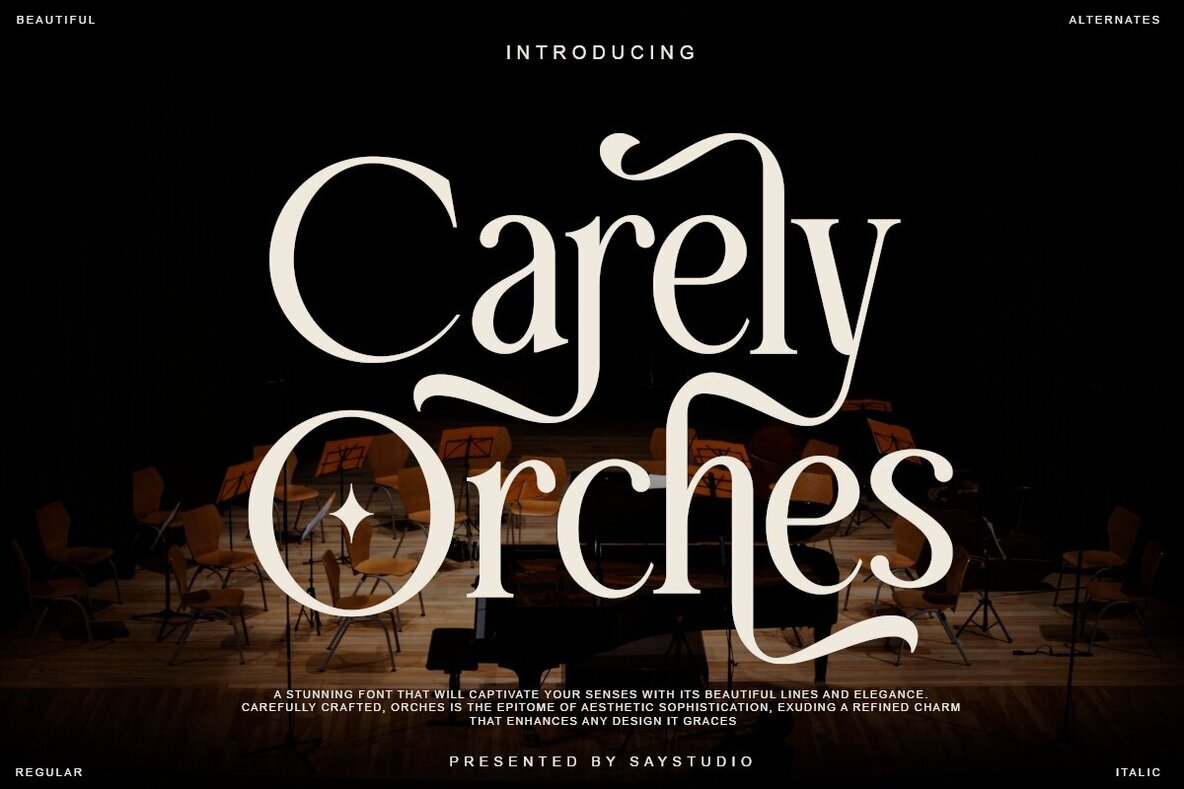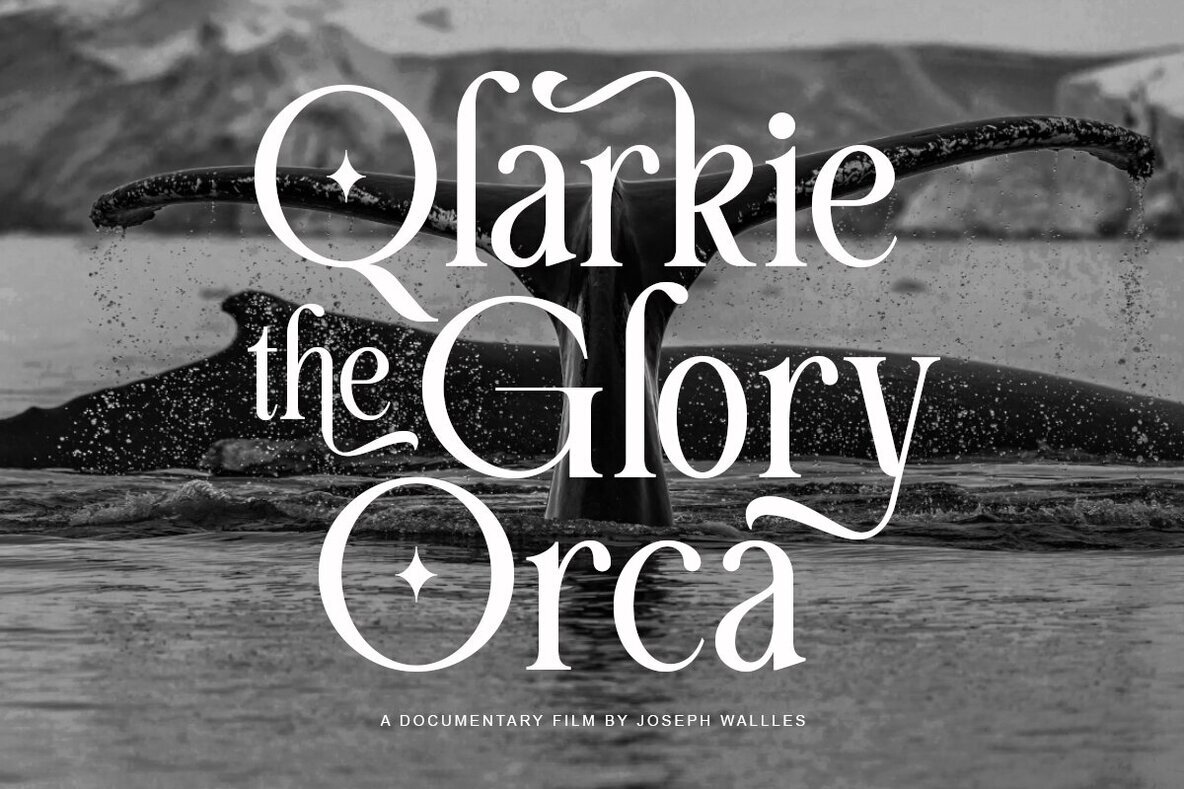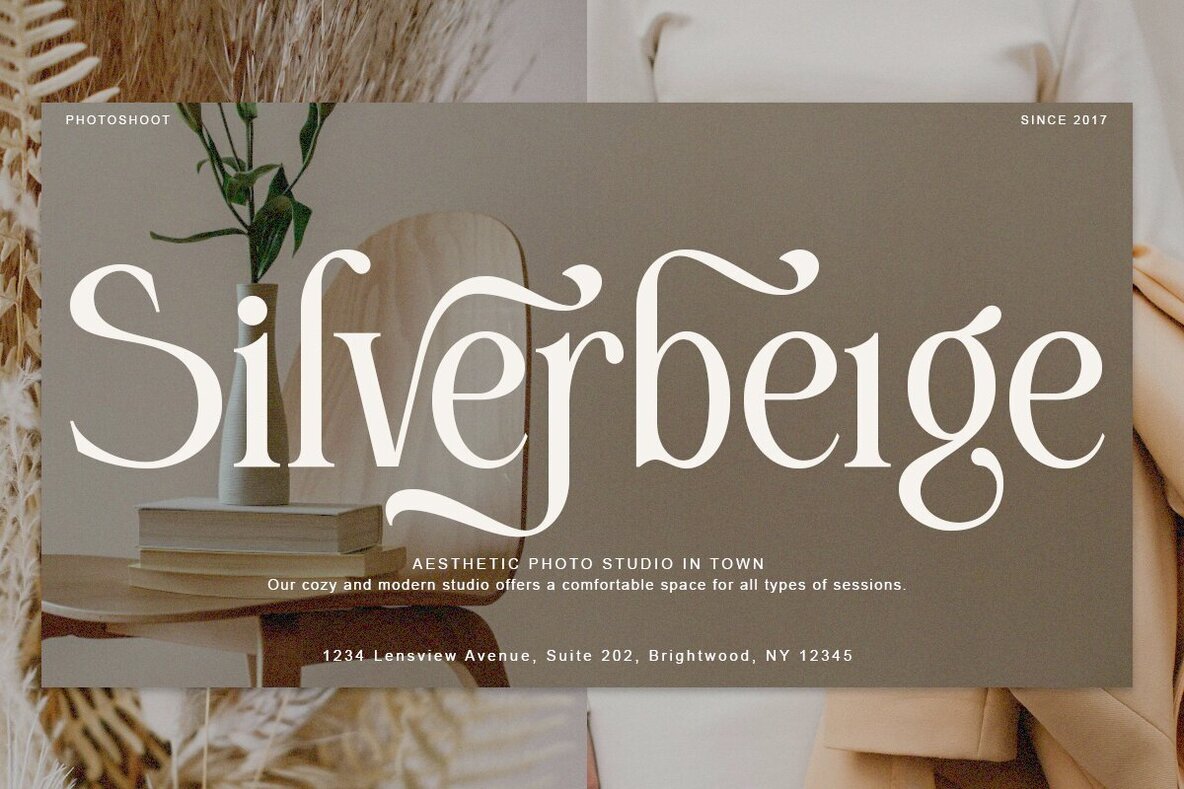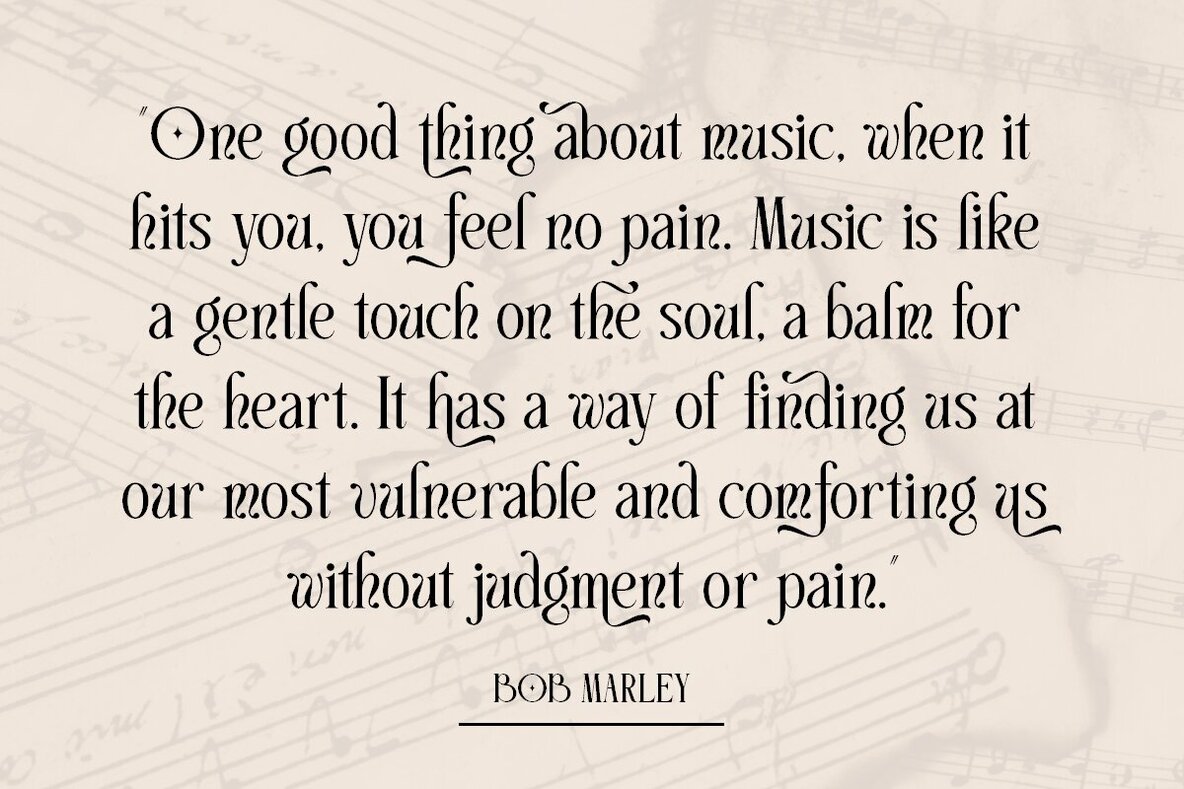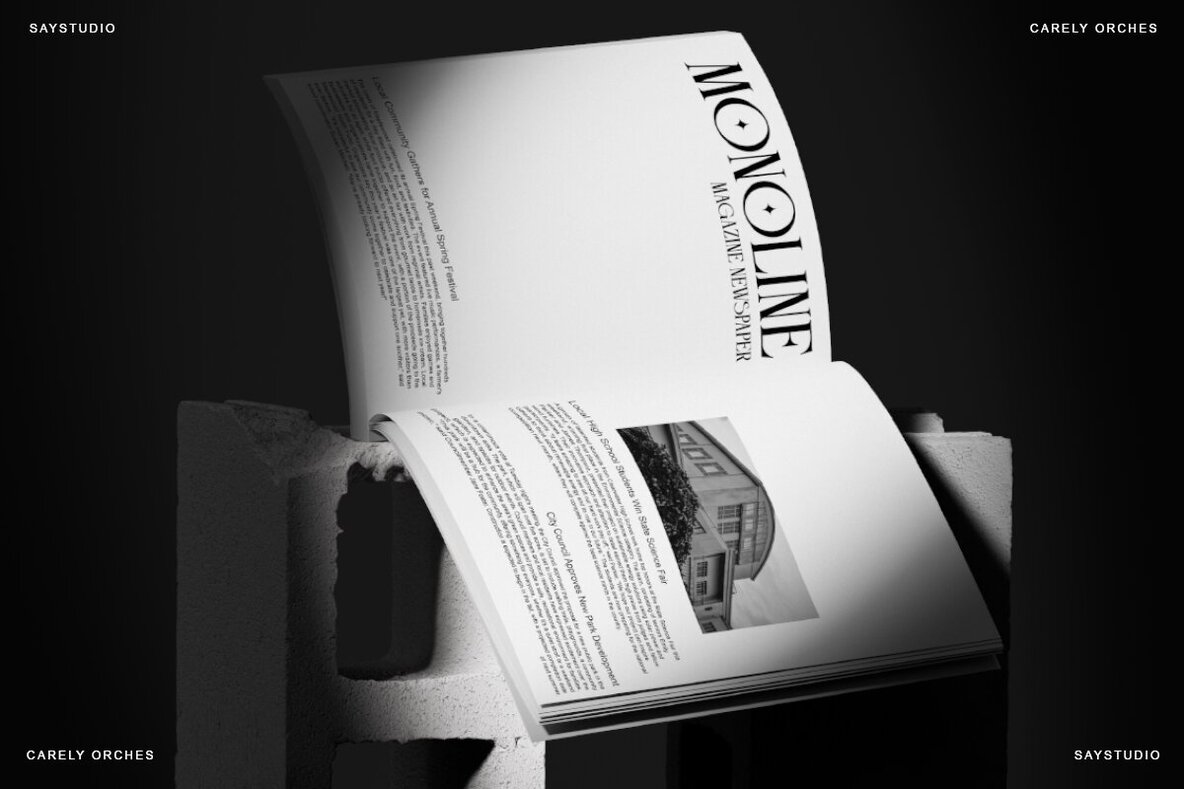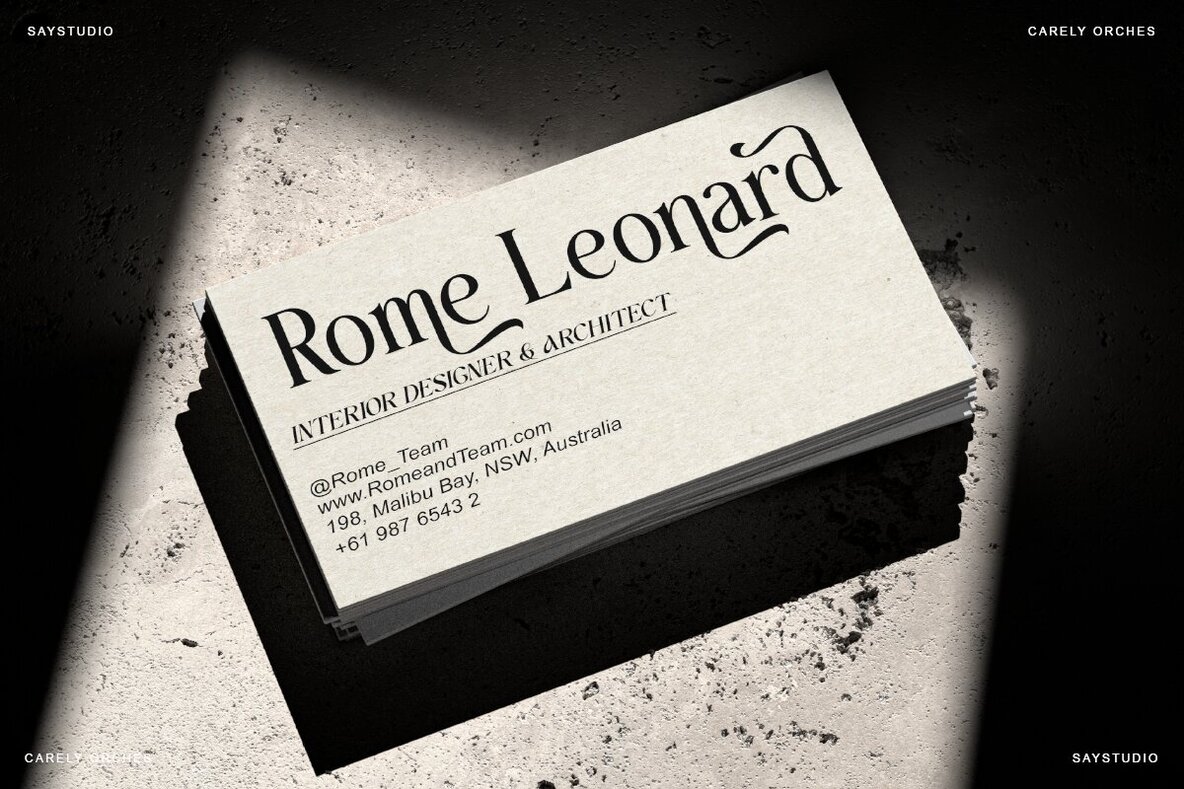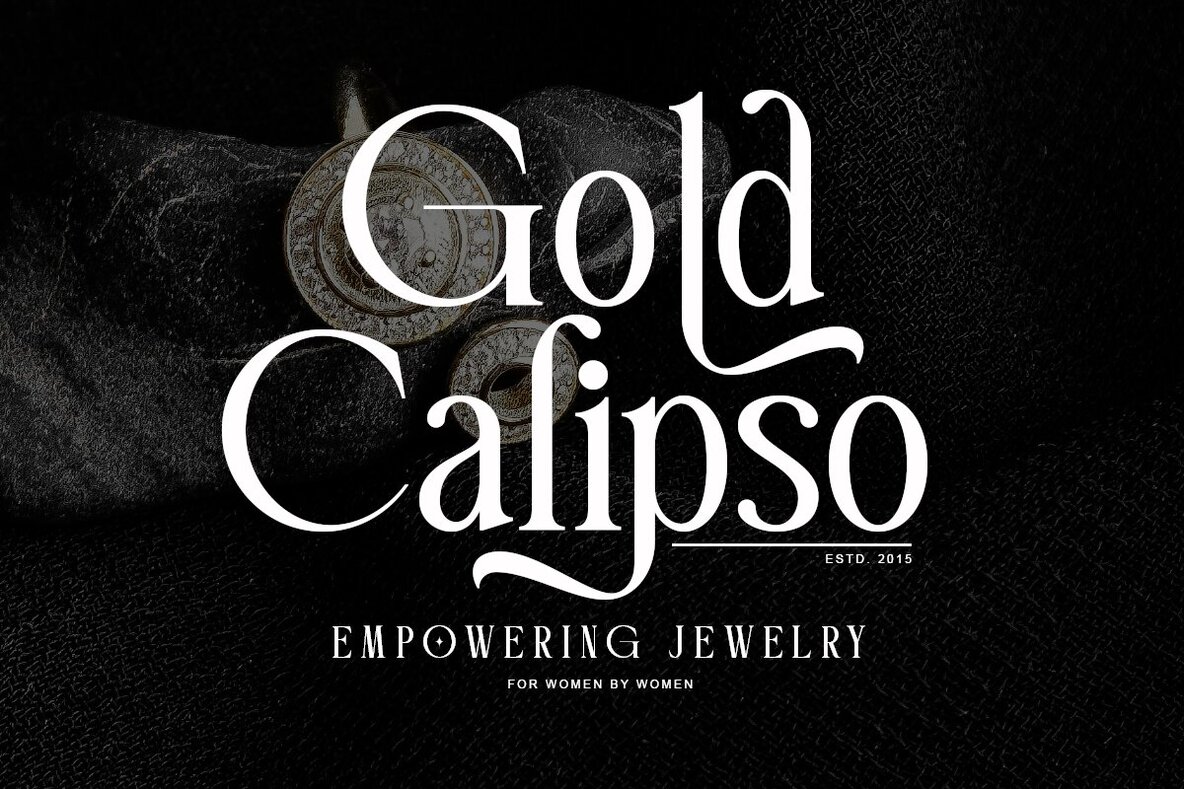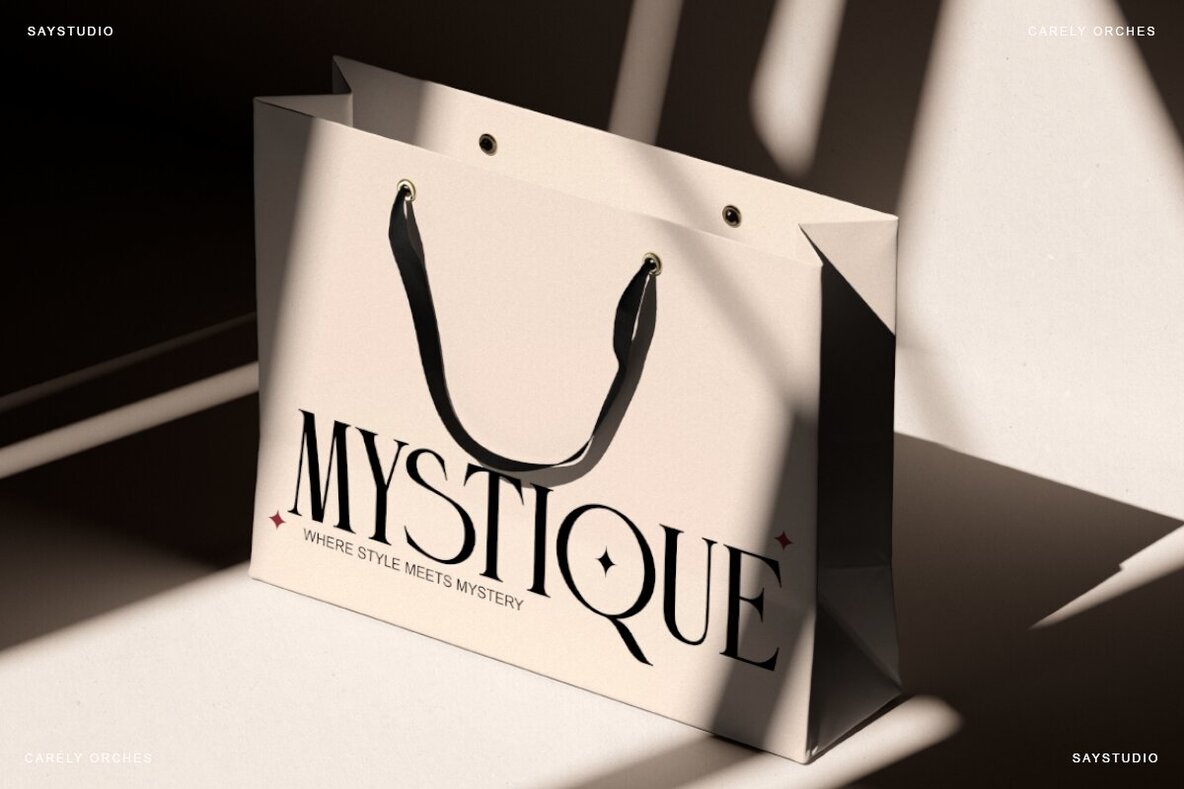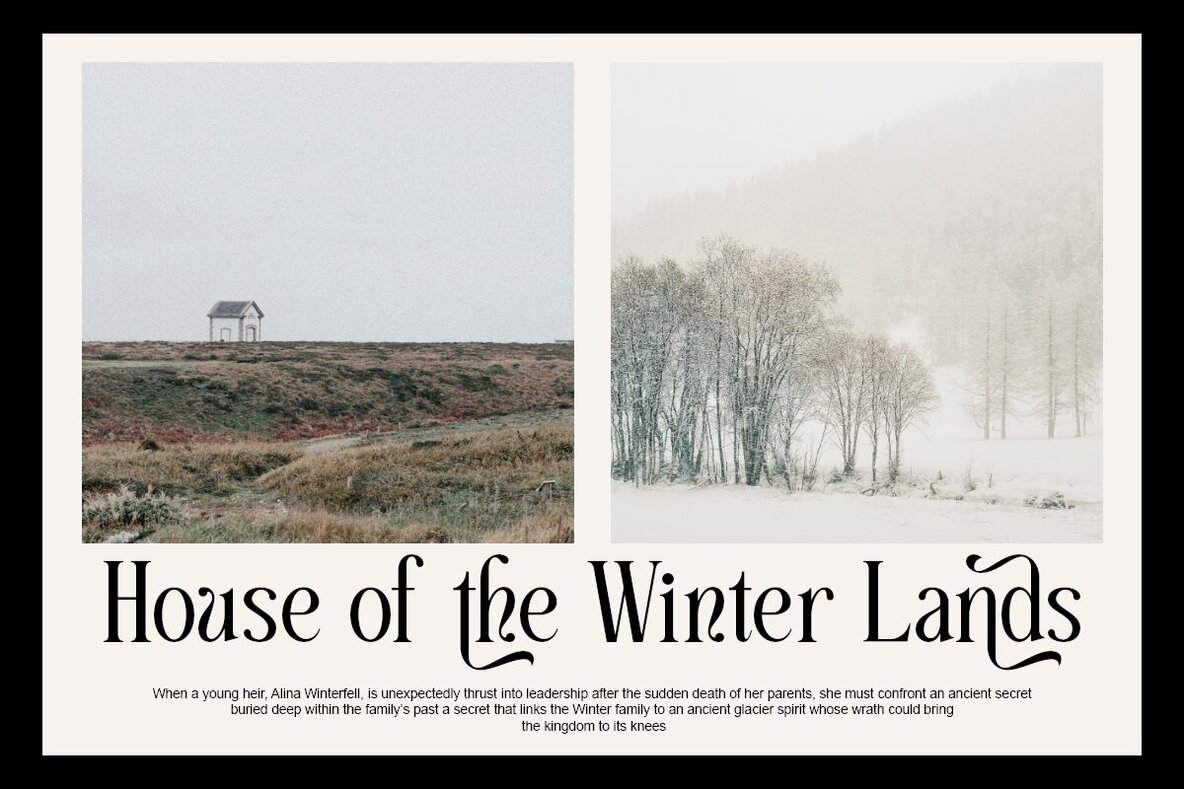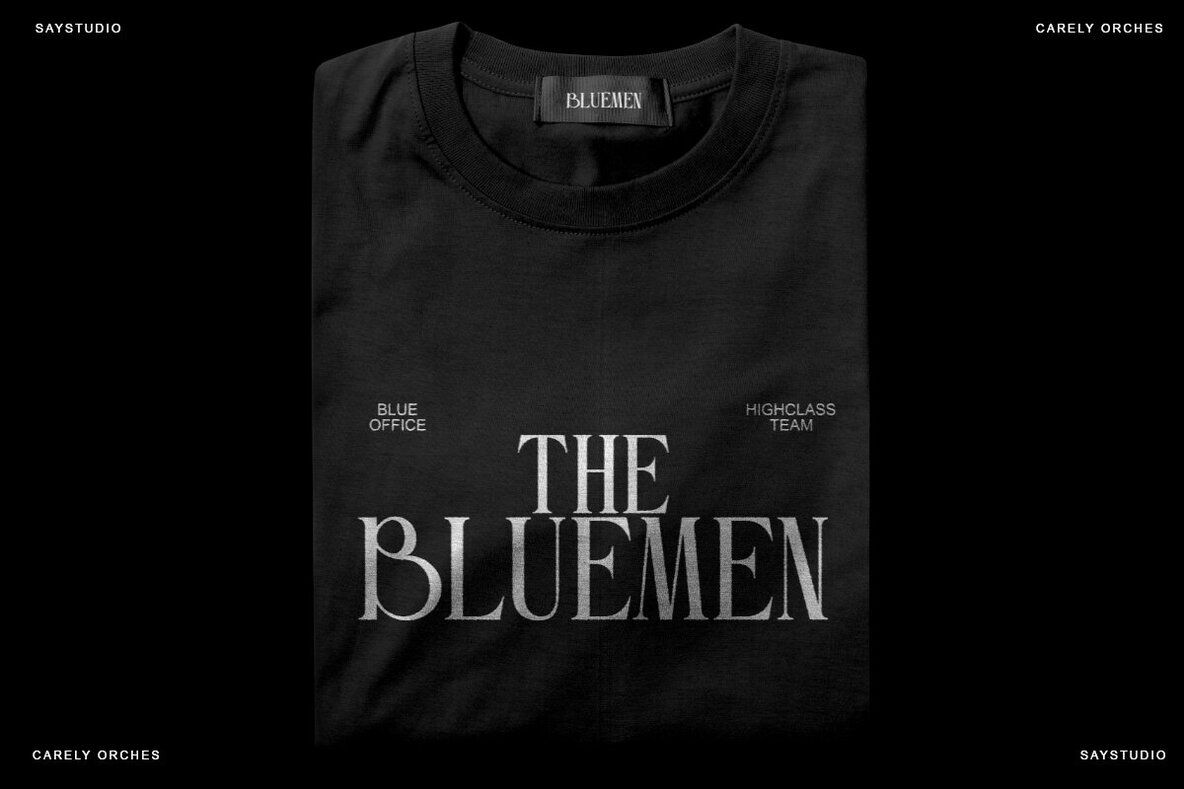
Carely Orches Font
Discover Carely Orches, an exquisite display serif font that exudes unparalleled style. Its unique character alternates bring sophistication to every letter, making it an outstanding choice for fashion projects, elegant magazine layouts, and chic logo designs. The included italic style complements its classic charm, offering versatile options for various applications.Carely Orches: Elegant Display Serif